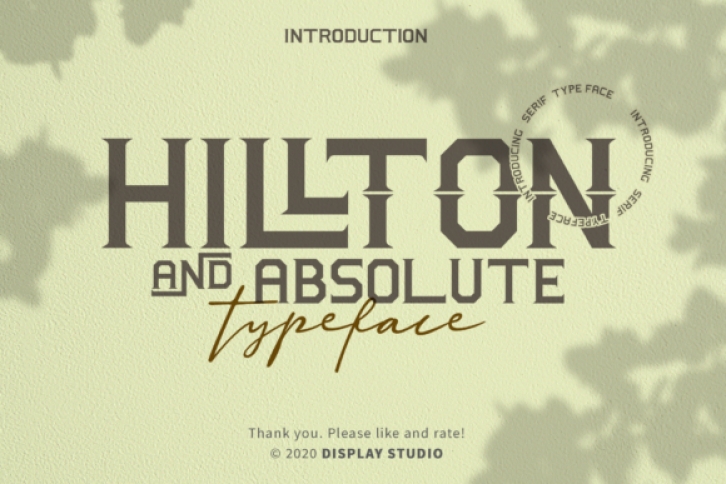
Hillton and Absolute is a fancy, contemporary serif font. In addition to its well-balanced weight distribution, it features a unique style which is further emphasized by the carefully adjusted alternates and ligatures!